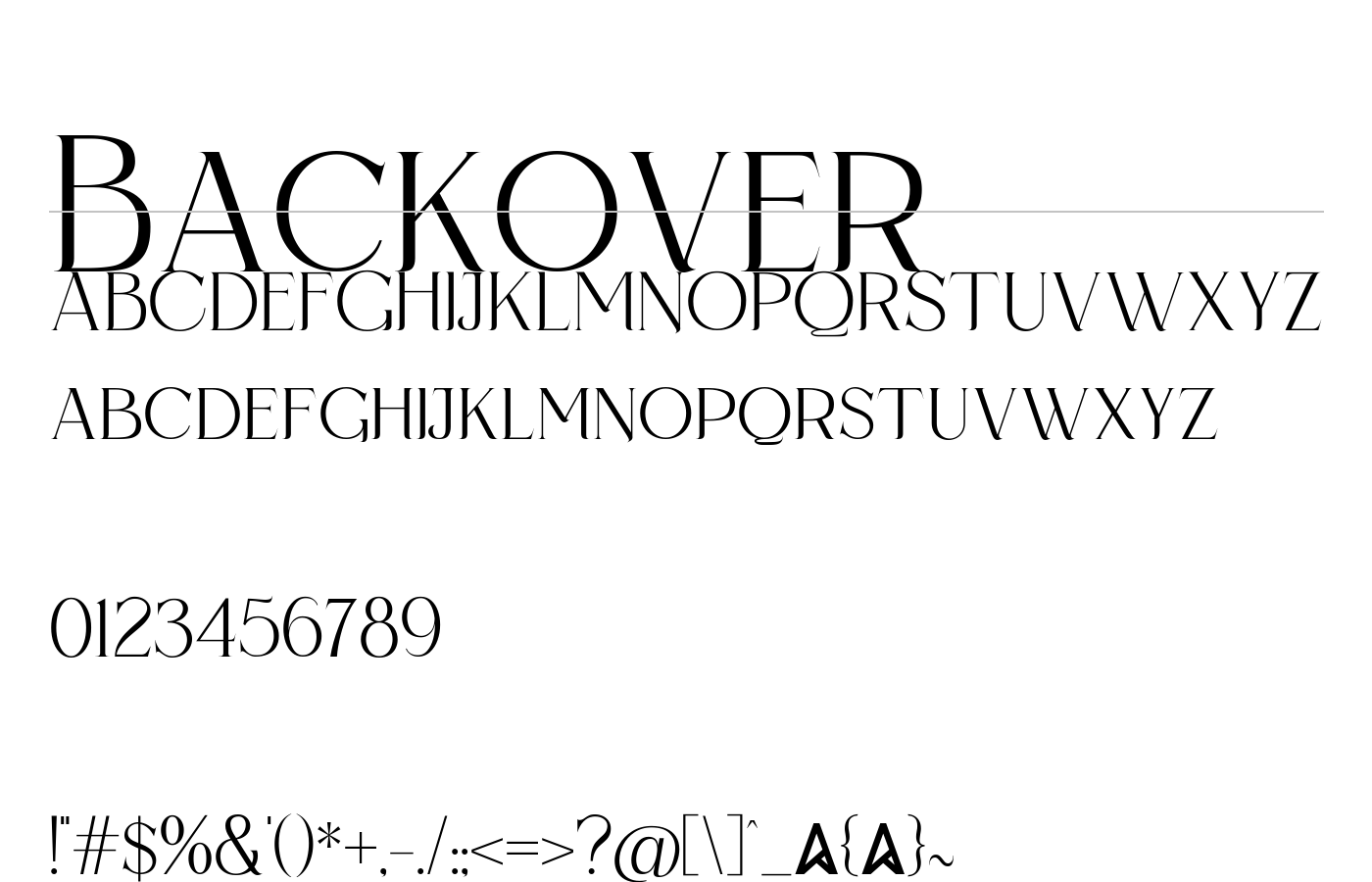
Backover is an elegant serif font characterized by its tall, slender letterforms and high contrast between thick and thin strokes, giving it a refined and sophisticated appearance. Its delicate serifs and unique details, like the curved tail on the Q and the smooth, bracketed stroke endings, make it perfect for luxury branding, fashion editorials, and upscale headlines where a timeless and graceful style is desired. This font’s airy spacing and sharp, stylish design convey a modern yet classic mood, ideal for projects seeking to combine elegance with a contemporary edge.
Backover Font